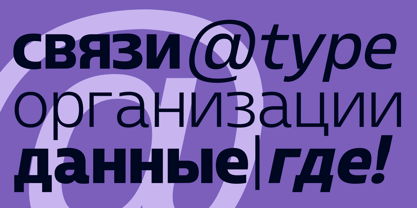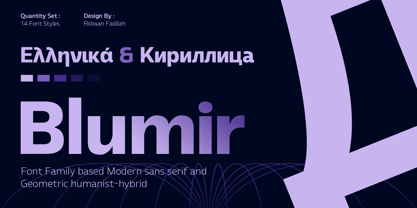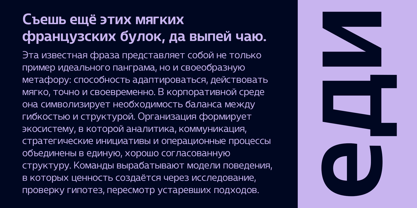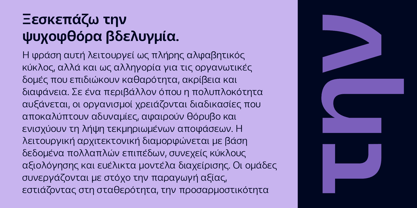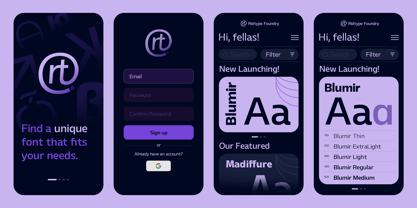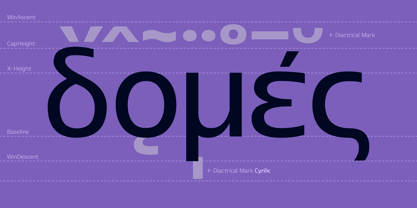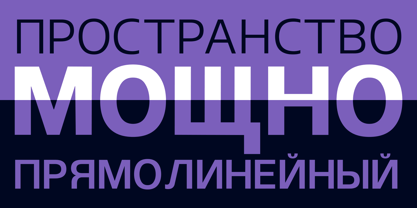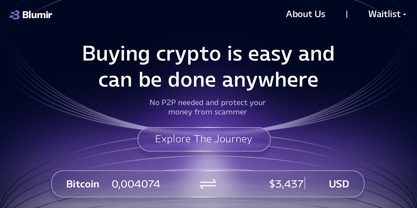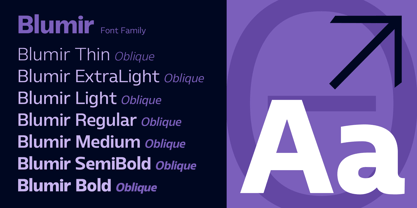
Blumir
The Blumir Font Family was designed by Ridwan Fadilah and published by Ridtype. Blumir contains 15 styles and family package options. More about this family
Blumir is a font blends geometric precision with a warm humanist touch, creating a modern sans-serif that is both elegant and highly readable. Engineered for today’s digital and branding demands, every letterform delivers visual stability, clean rhythm, and a professional aesthetic that adapts seamlessly across platforms. Its tall x-height and refined shapes ensure outstanding performance in interfaces, websites, business materials, and commercial campaigns. The typeface projects a forward-thinking, efficient, and confident identity—perfect for brands aiming to elevate credibility, strengthen consistency, and showcase a contemporary corporate presence with clear visual authority.